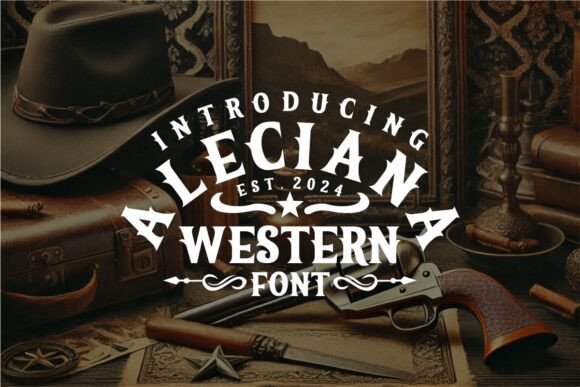
Aleciana Western Font: Elevate Your Design with a Touch of Retro Elegance
In the realm of typography, fonts play a pivotal role in defining the visual identity of a project. Whether you’re working on a poster, a brand’s logo, or any creative endeavor, the right font can make all the difference. Aleciana Western Font is a stylish retro serif font that has been making waves in the design community for its unique blend of classic charm and modern flair. This versatile font is designed to add a touch of sophistication to any project, making it an excellent choice for designers looking to achieve a balance of vintage aesthetics and contemporary appeal.
Aleciana Western: A Stylish Retro Serif Font
Aleciana Western is not just another font; it’s a design statement. Its retro serif style is reminiscent of classic times, yet it incorporates modern elements that make it relevant for today’s design needs. The font’s design is characterized by its elegant lines, sophisticated look, and the perfect balance of vintage and modern appeal. This makes Aleciana Western an ideal choice for a wide range of applications, from posters and branding to digital content and more.
The Timeless Design of Aleciana Western
One of the standout features of Aleciana Western is its timeless design. Unlike trends that fade with time, this font strikes a perfect balance between being classic and contemporary. Its design elements are carefully crafted to ensure that it adds a touch of elegance and sophistication to any project. Whether you’re aiming for a vintage look or a modern aesthetic, Aleciana Western seamlessly fits into any design strategy, making it a versatile tool for designers.
Versatile Applications of Aleciana Western Font
The versatility of Aleciana Western is one of its most appealing qualities. This font can be used in a myriad of projects, including:
- Posters: Add a retro touch to your posters with Aleciana Western, making them stand out with a classic yet trendy vibe.
- Branding: Elevate your brand’s visual identity with a font that exudes sophistication and elegance.
- Digital Content: Use Aleciana Western to give your digital content a unique look that captures the attention of your audience.
- Packaging: Make your product packaging stand out with a font that combines vintage charm with modern appeal.
Achieving Balance with Aleciana Western
Achieving a balance between vintage aesthetics and contemporary appeal can be challenging. However, with Aleciana Western, this balance is effortlessly achieved. The font’s retro serif style brings a sense of nostalgia and classic charm, while its modern design elements ensure it remains relevant and appealing to contemporary tastes. This balance makes Aleciana Western perfect for designers who want to create visually striking projects that stand out from the crowd.
Upgrading Your Design with Aleciana Western
Upgrading your design to make it more visually impactful has never been easier with Aleciana Western. By incorporating this stylish retro serif font into your project, you instantly add a layer of sophistication and elegance. The classic yet trendy vibe of Aleciana Western ensures that your design does not only look good but also stands out in a crowded digital landscape. Whether you’re working on a personal project or a client’s brief, Aleciana Western is a valuable asset in your design toolkit.
Aleciana Western Font is more than just a typeface; it’s a design solution that brings a perfect blend of classic charm and modern flair to the table. Its timeless design, versatility, and ability to achieve a balance between vintage and contemporary aesthetics make it an excellent choice for a wide range of design projects. By choosing Aleciana Western, you’re not just selecting a font; you’re elevating your design to new heights of sophistication and visual appeal. Upgrade your design with Aleciana Western today and experience the difference it can make.
Final Thoughts
In the world of design, fonts are more than just letters on a screen or paper; they are the essence of visual communication. Aleciana Western Font stands out in the vast sea of typefaces for its unique characteristics and the value it brings to design projects. As you explore the possibilities of Aleciana Western, you’ll discover its potential to transform your designs, making them more engaging, elegant, and memorable. With Aleciana Western, you’re on your way to creating standout visual content that leaves a lasting impression.